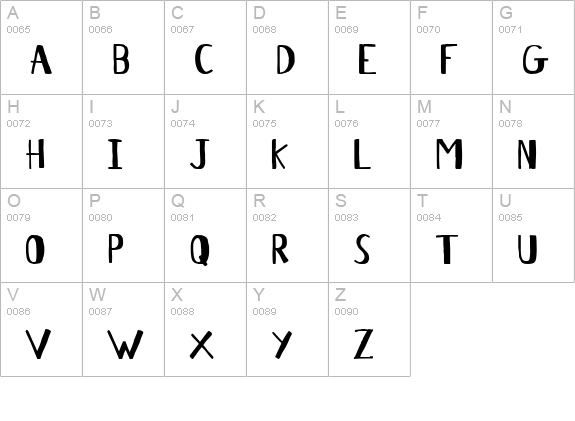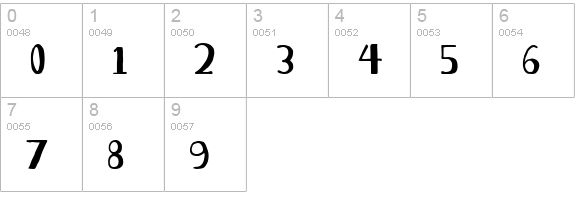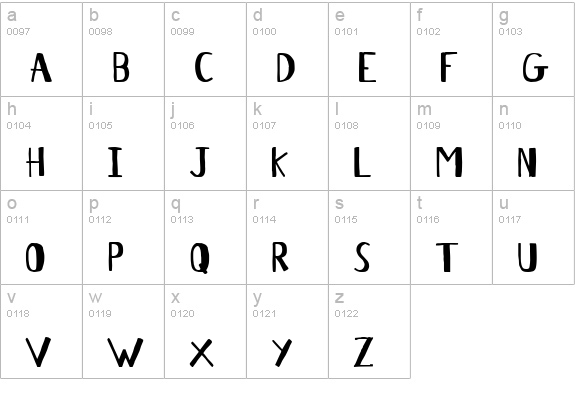
Antelope H is a versatile and elegant font that exudes sophistication and charm. With its sleek lines and modern appeal, this typeface is perfect for a wide range of design projects, from branding to editorial layouts. The clean and legible letterforms of Antelope H make it a standout choice for both digital and print applications. What sets Antelope H apart is not just its stylish aesthetic, but also the fact that it is available for free download at FontsMarket.com. This means you can easily access and use this beautiful font in your projects without any cost involved. Whether you're a professional designer or a hobbyist looking to elevate your creations, Antelope H is a must-have addition to your font library. Get your hands on this stunning typeface today and add a touch of sophistication to your designs.